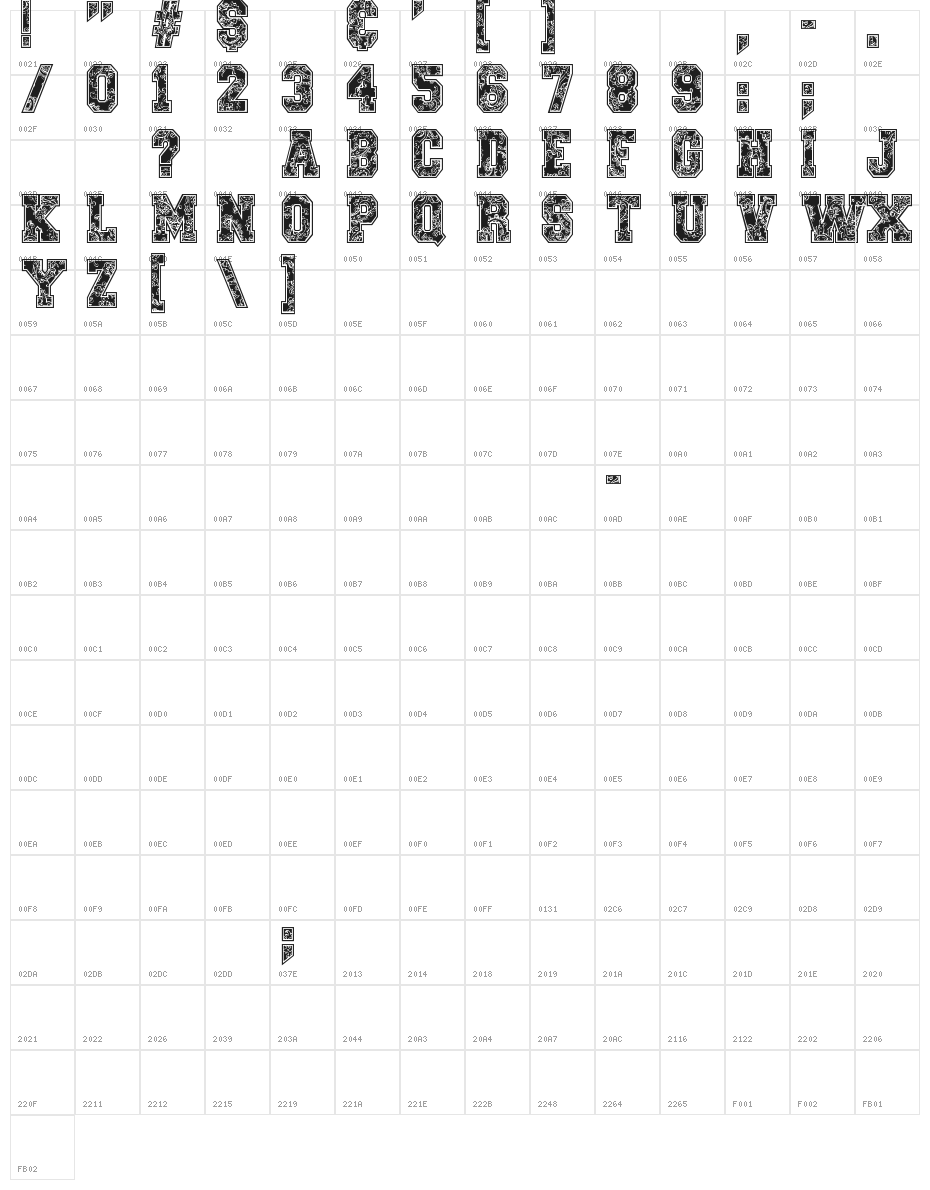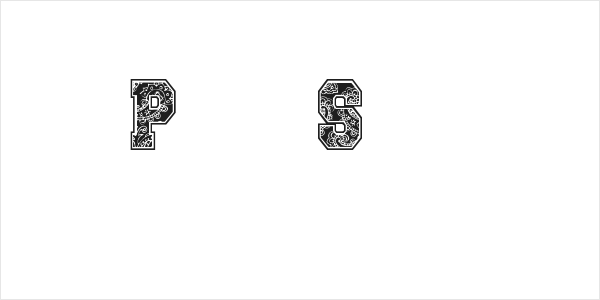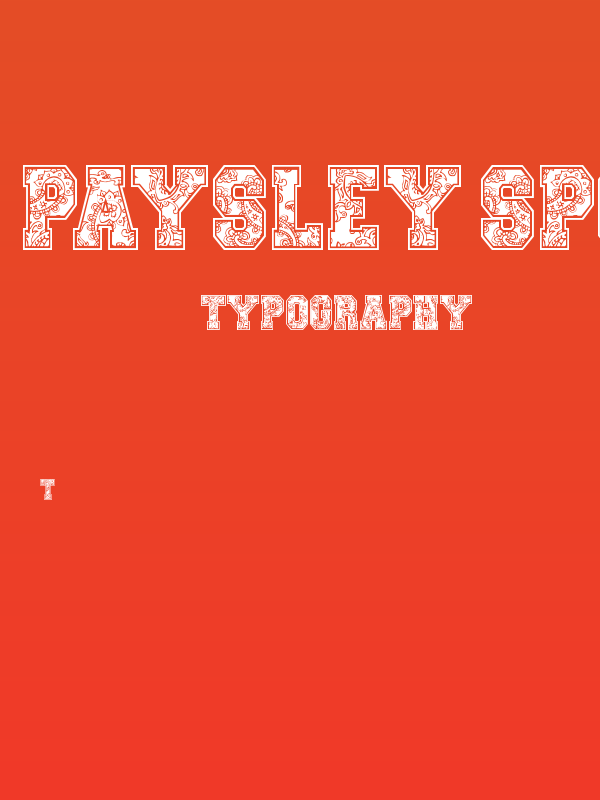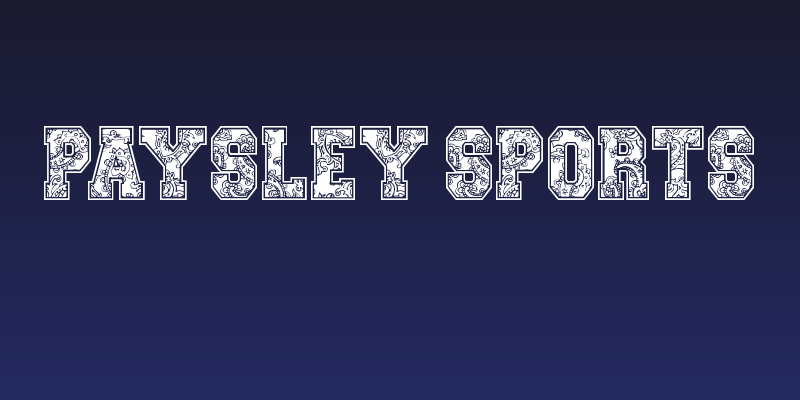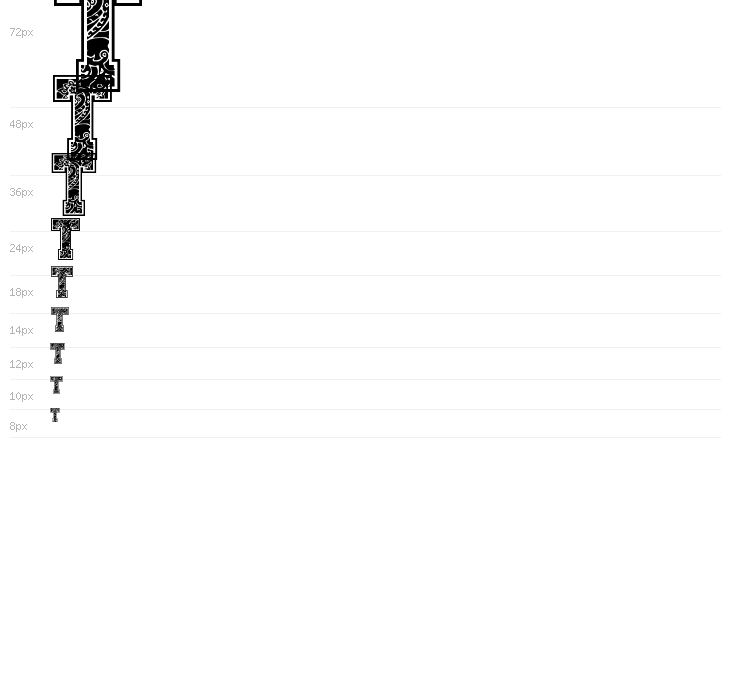
Paysley Sports Font
Paysley Sports Description
This font features a bold, decorative style with intricate paisley patterns embedded within each character. The uppercase letters are robust and commanding, with a strong presence that makes them ideal for attention-grabbing headlines. The numerals and special characters maintain the same decorative theme, ensuring consistency across all text elements. The intricate detailing within each character adds a layer of complexity and elegance, making it suitable for projects that require a unique and artistic touch. The font's design is reminiscent of vintage sports aesthetics, combined with a modern twist through its detailed patterns.
| Overall Style | Vintage, Decorative |
| Proposed Projects | Perfect for sports-themed designs, vintage posters, branding, and artistic projects requiring a unique flair. |